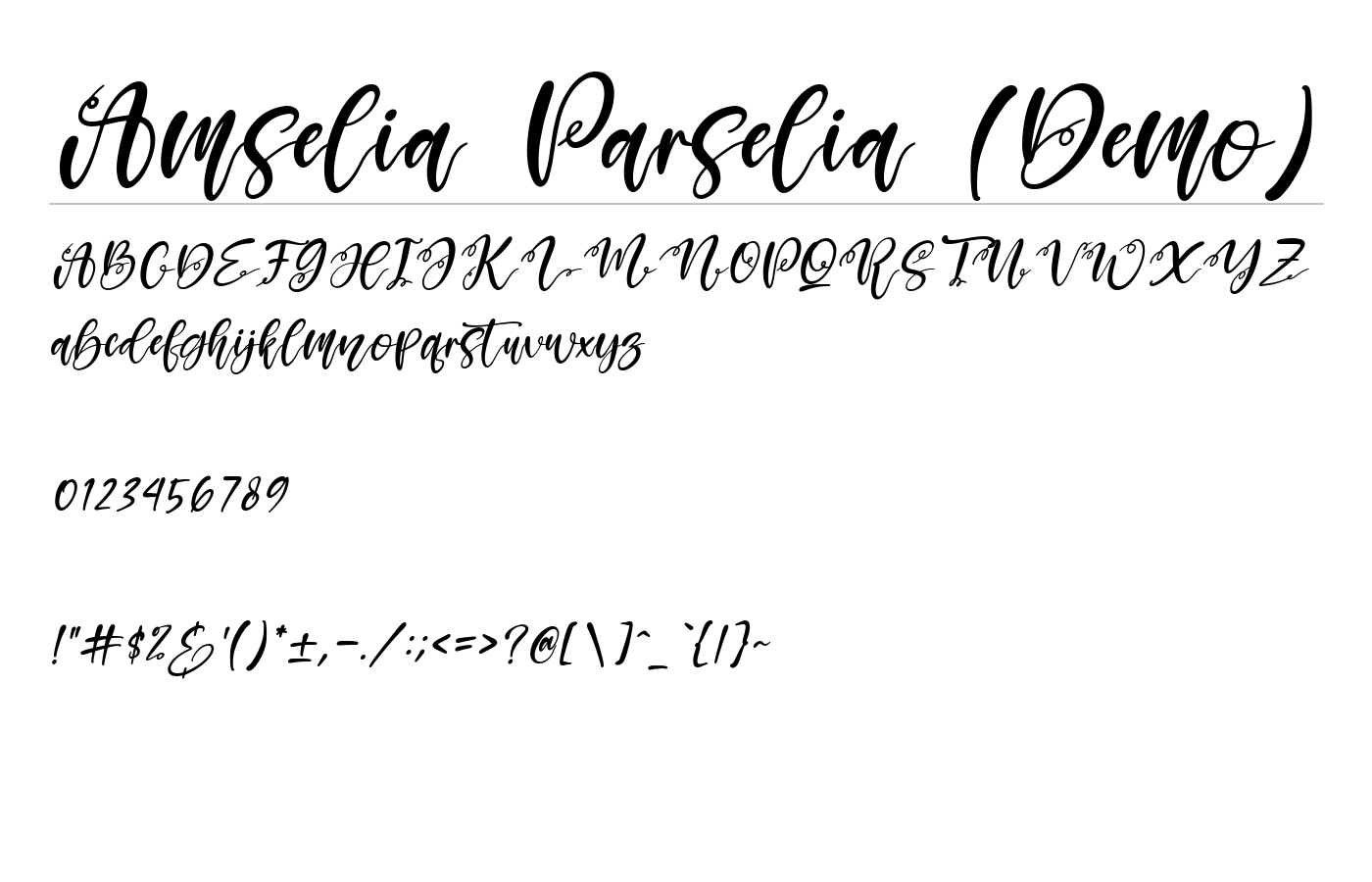
Amselia Parselia (Demo) is an elegant script font characterized by smooth, flowing strokes and charming flourishes, giving it a graceful and feminine feel. Its moderate contrast and handwritten style make it perfect for wedding invitations, branding, and other creative projects that need a personal and stylish touch. This font brings a sophisticated yet approachable personality to designs, ideal for headlines and decorative use.
Amselia Parselia (Demo) Font
About Amselia Parselia (Demo) Font
| Font family | Amselia Parselia (Demo) Font |
| Designer | Isolatype and wildan type |